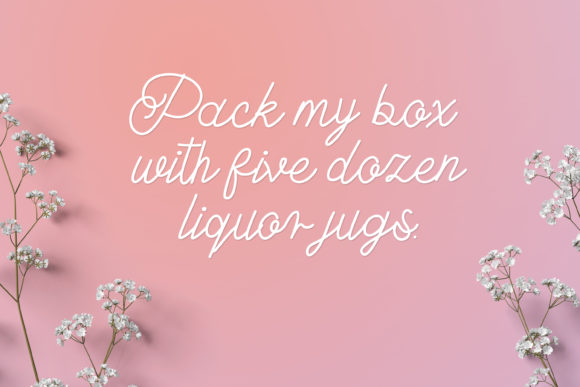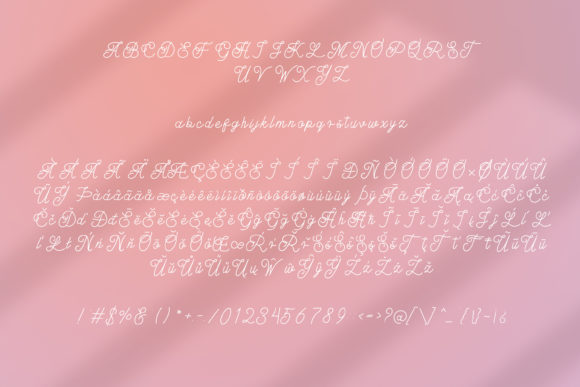
Introduction to La Eva Font
La Eva is a sweet and round lettered handwritten font, designed to elevate even your most creative ideas.
Inspired by classic calligraphy, this font is incredibly versatile, fitting a wide pool of contexts .
Key Features of La Eva Font
Why Choose La Eva Font?